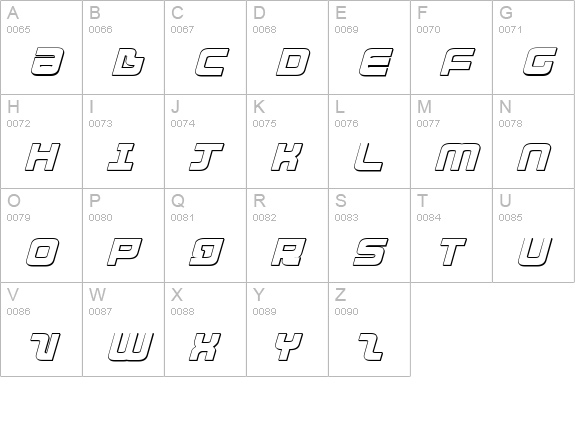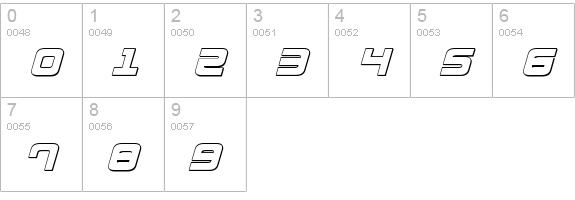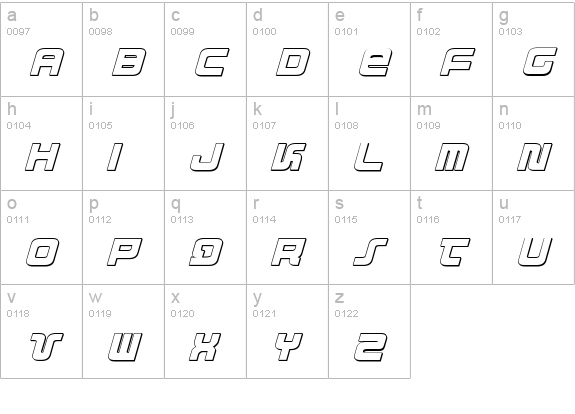
Direktor 3D Italic is a distinctive, italic variant in the Direktor typeface family \xE2\x80\x94 well suited to design and typography projects.
Direktor 3D Italic font is a modern and stylish typeface that exudes sophistication and elegance. Its sleek design and three-dimensional effect make it perfect for adding a touch of depth and flair to any project. The italic style adds a sense of dynamism and movement to the text, making it stand out and grab attention. What's even better is that Direktor 3D Italic font is available for free download at FontsMarket.com. This means you can easily access this stunning font and use it in your personal or commercial projects without any cost. Whether you're designing a website, creating marketing materials, or working on a branding project, Direktor 3D Italic font is sure to elevate your design and make a lasting impression. Download it today and unleash your creativity with this versatile and eye-catching typeface.